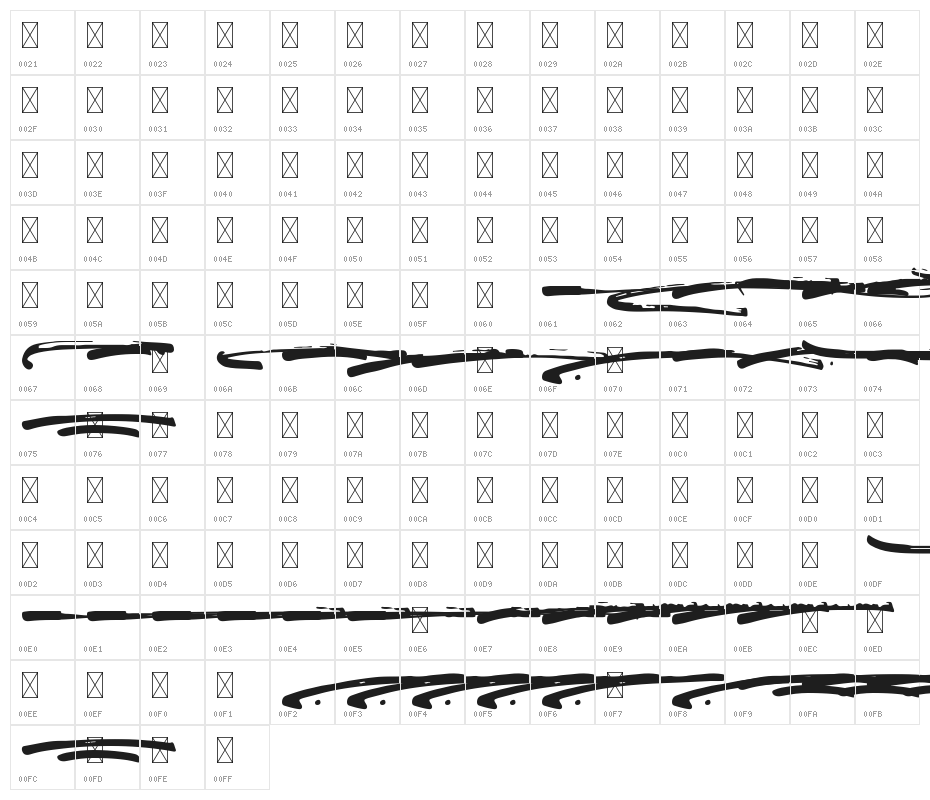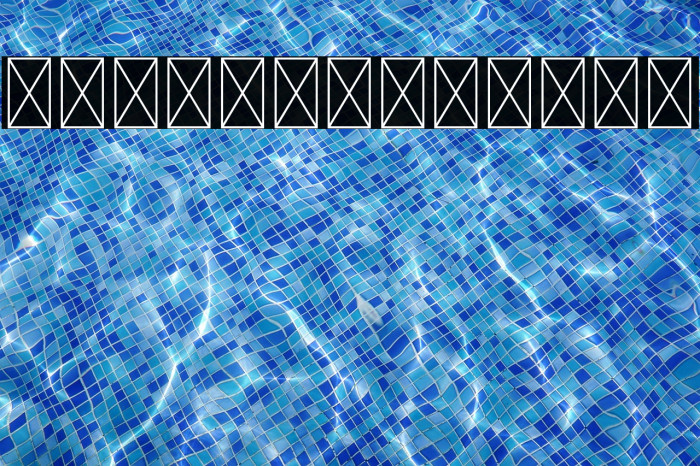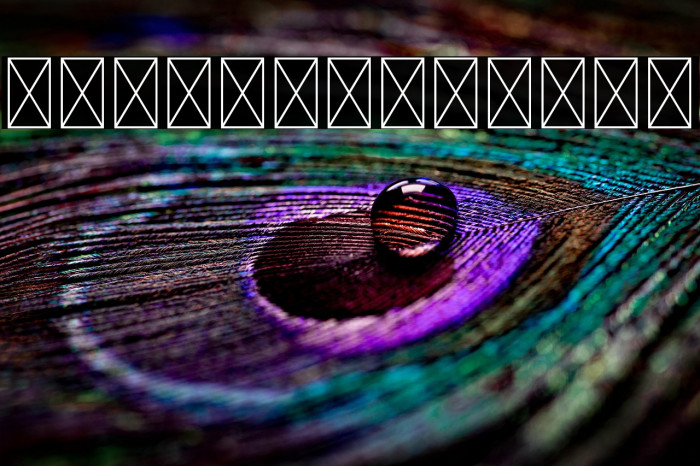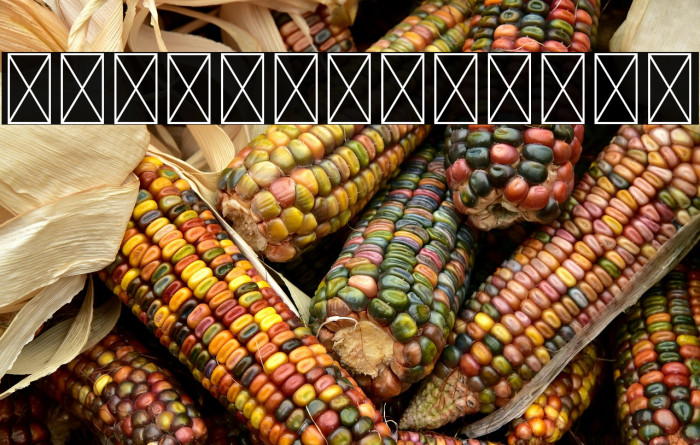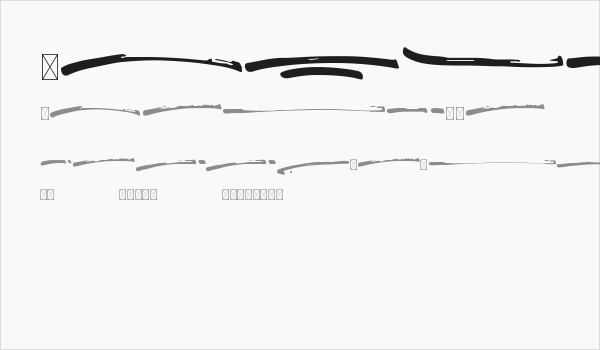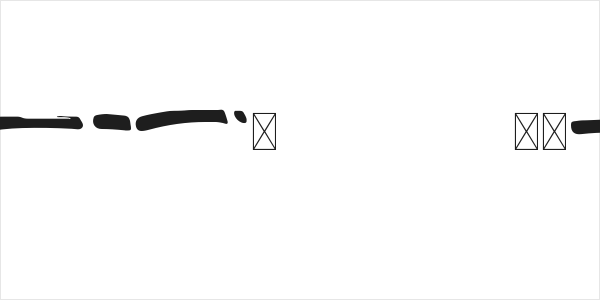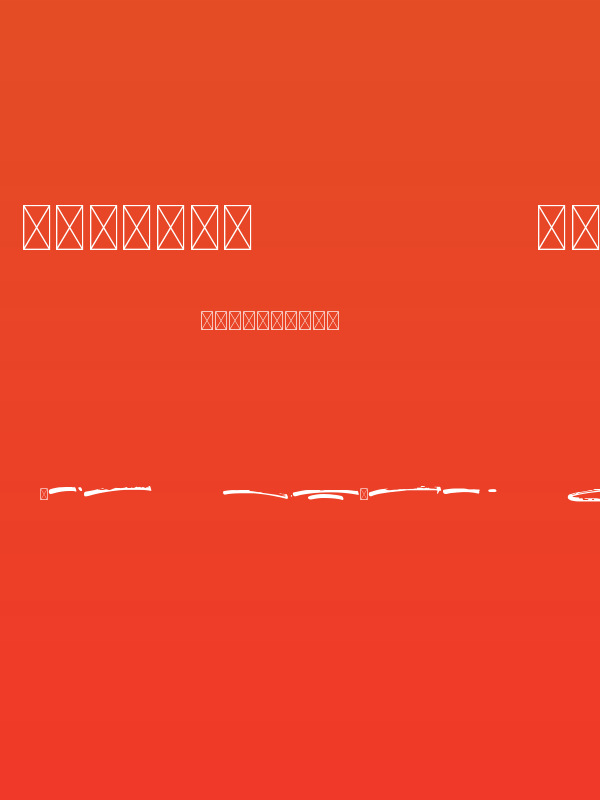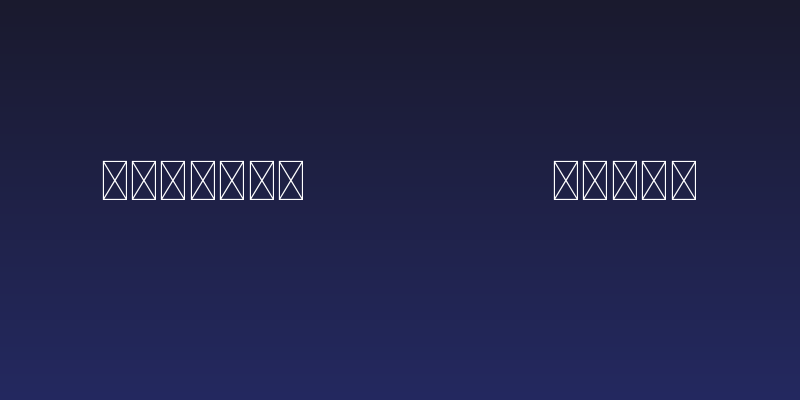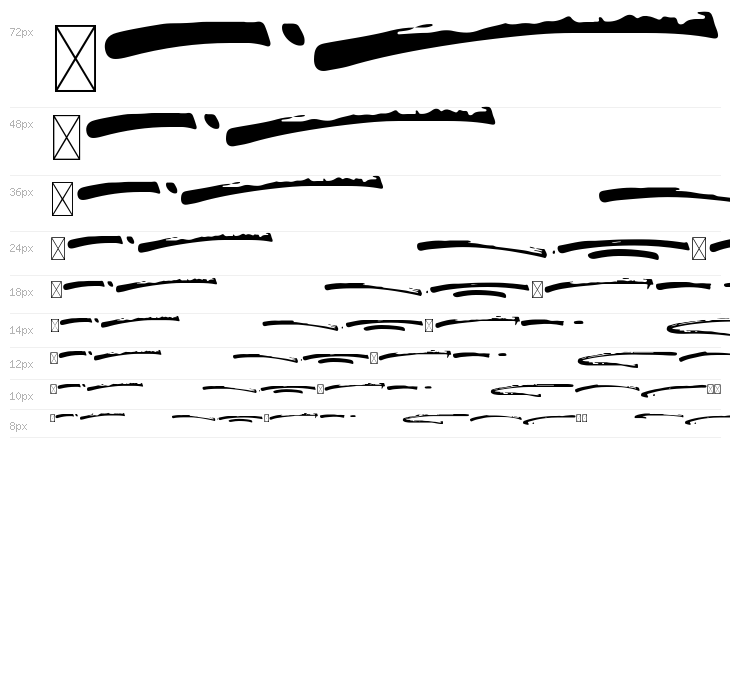
Brusthy Swash Font
Brusthy Swash Description
A decorative script font with elaborate swashes and flowing, hand-drawn strokes. The letterforms are highly stylized with extended flourishes, giving a dynamic and artistic appearance. The characters have varying stroke thickness and organic curves, contributing to a whimsical and expressive feel.
| Overall Style | Decorative, Artistic, Handwritten |
| Use Case | Logos, Invitations, Headlines, Decorative text |
| Proposed Projects | Wedding invitations, branding, greeting cards, posters, artistic logos. |